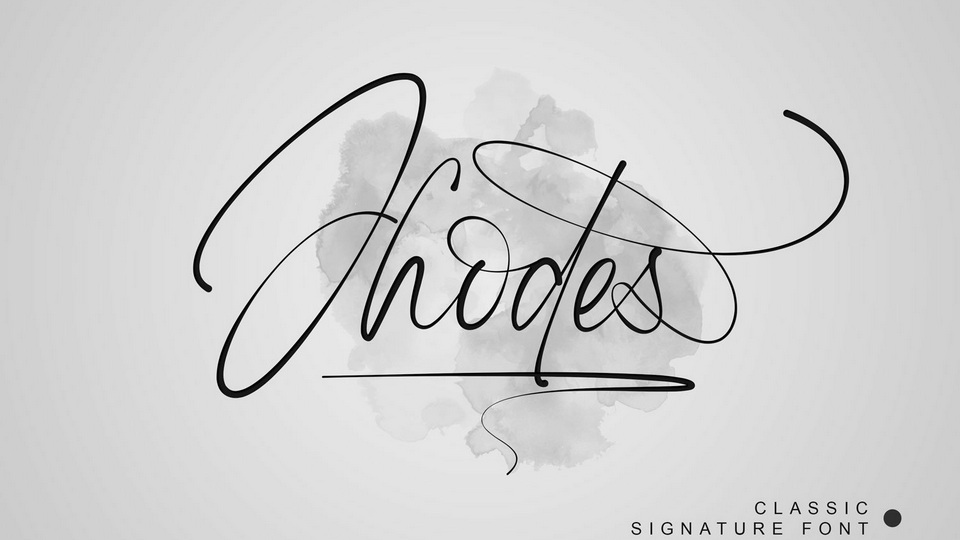
Download Jhodes font, a perfect signature typeface, in a classic style. Jhodes font is ideal for many different project such as logos and branding, wedding designs, social media posts, advertisements, photography watermark, special events or anything.
Designer: Lemonthe